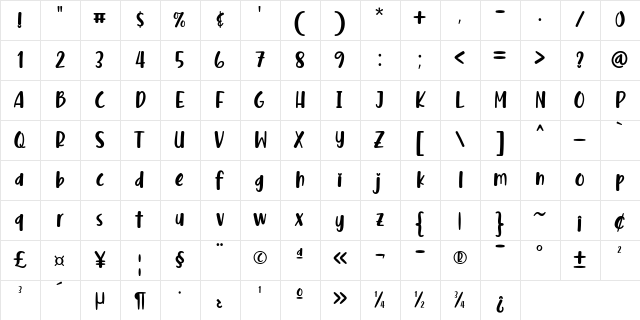
Malove Regular
Design Context for Malove Typeface
Malove is a composed and adaptable typeface that performs quietly and consistently across a wide range of design contexts.
Pro Tip: Pair Malove with a font of contrasting weight or personality to build a more expressive typographic hierarchy.